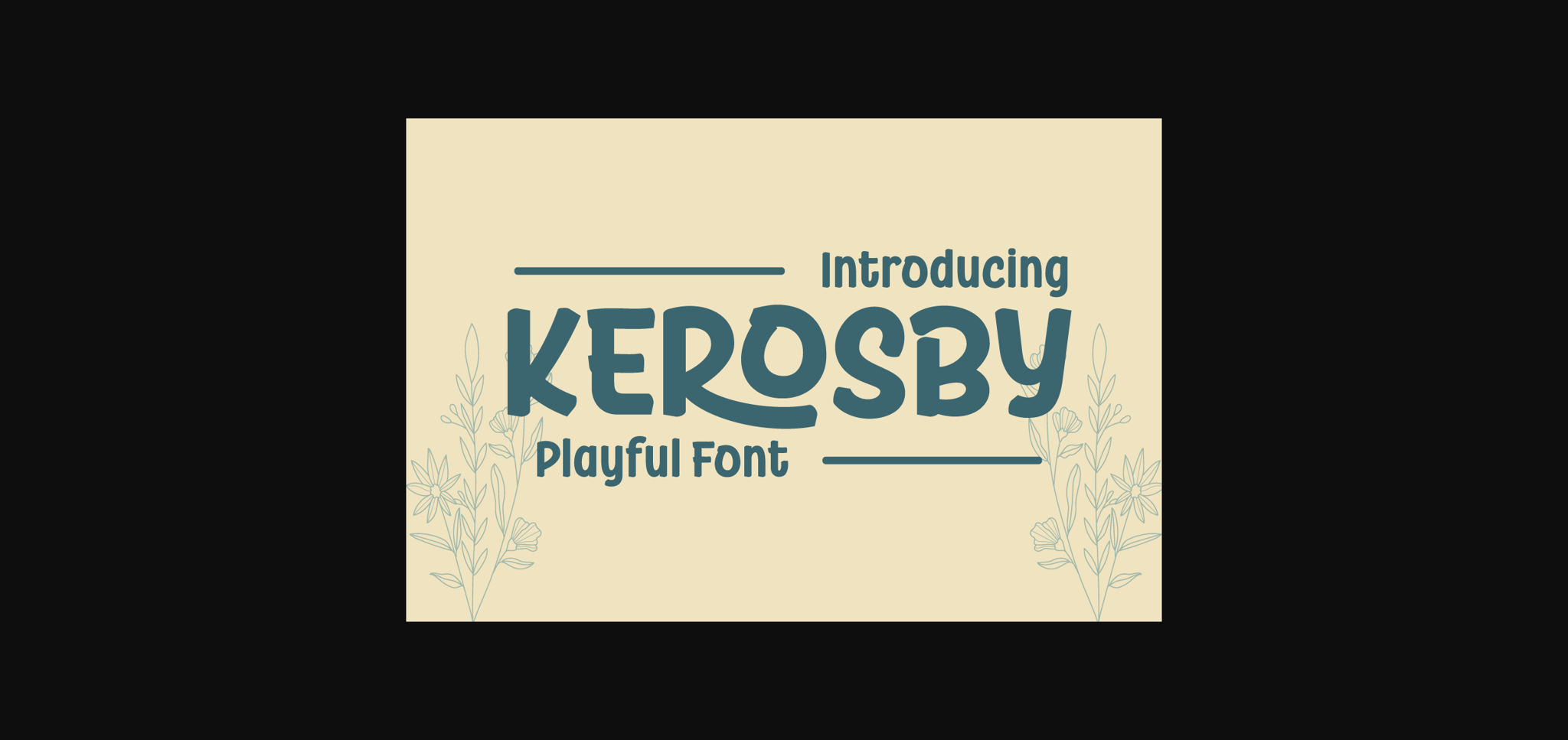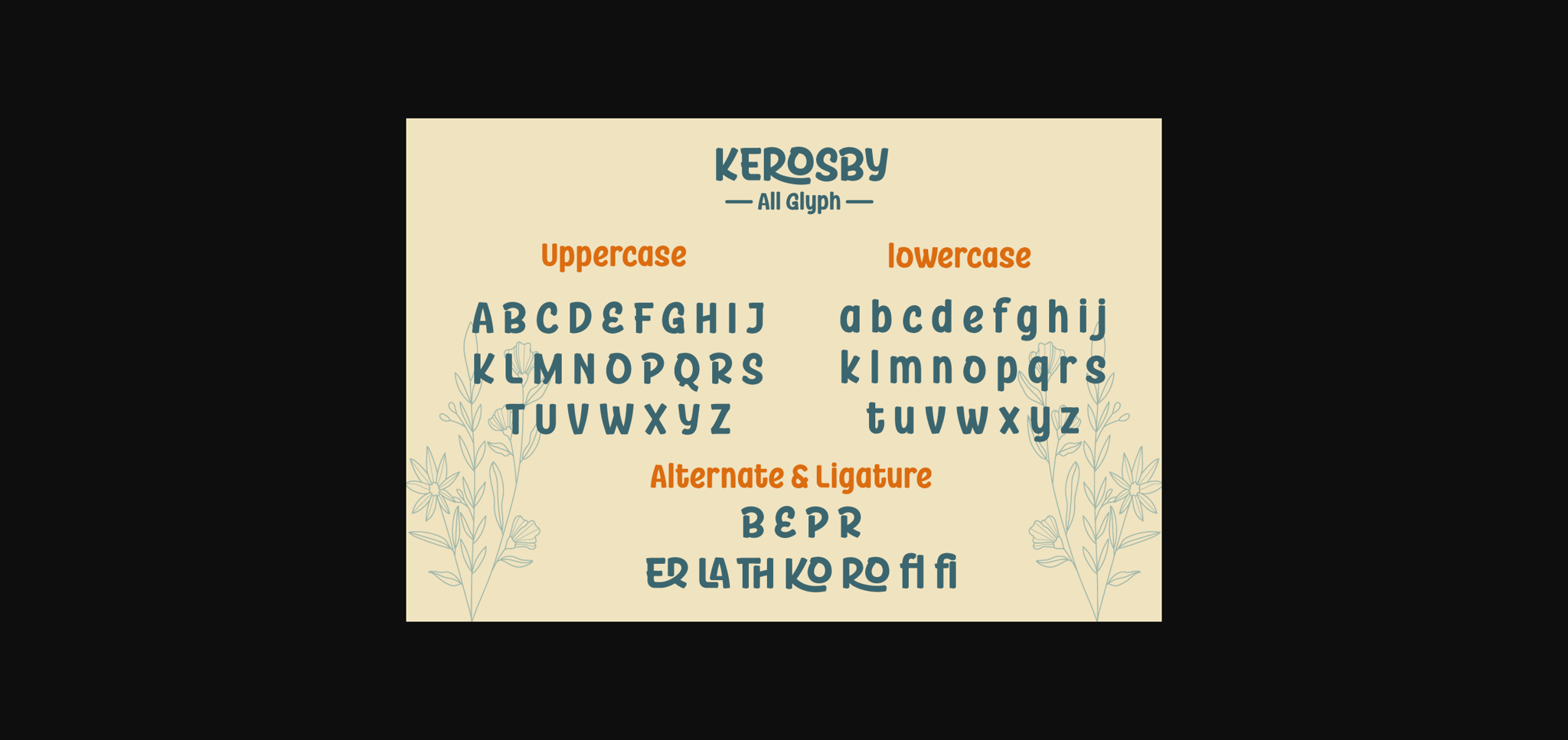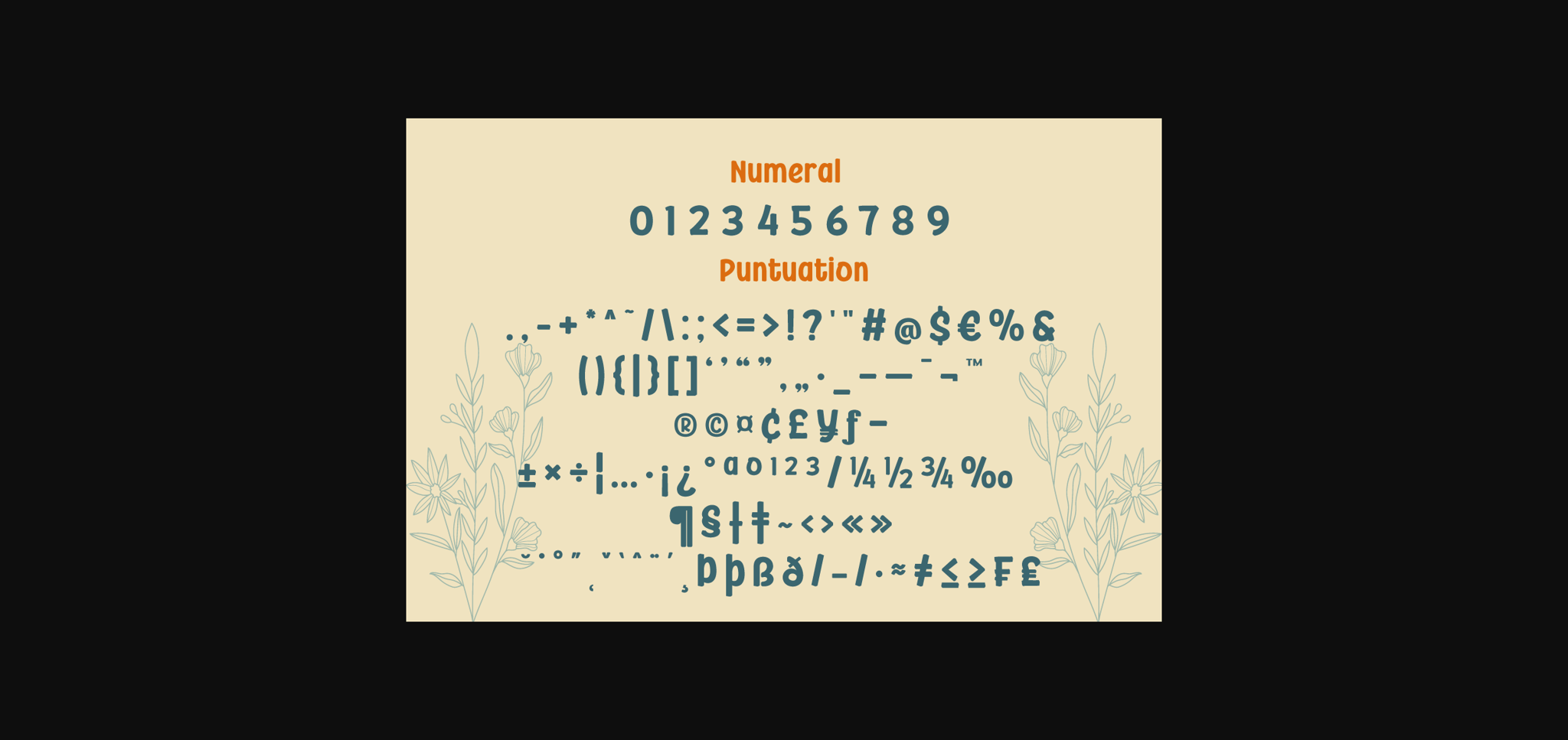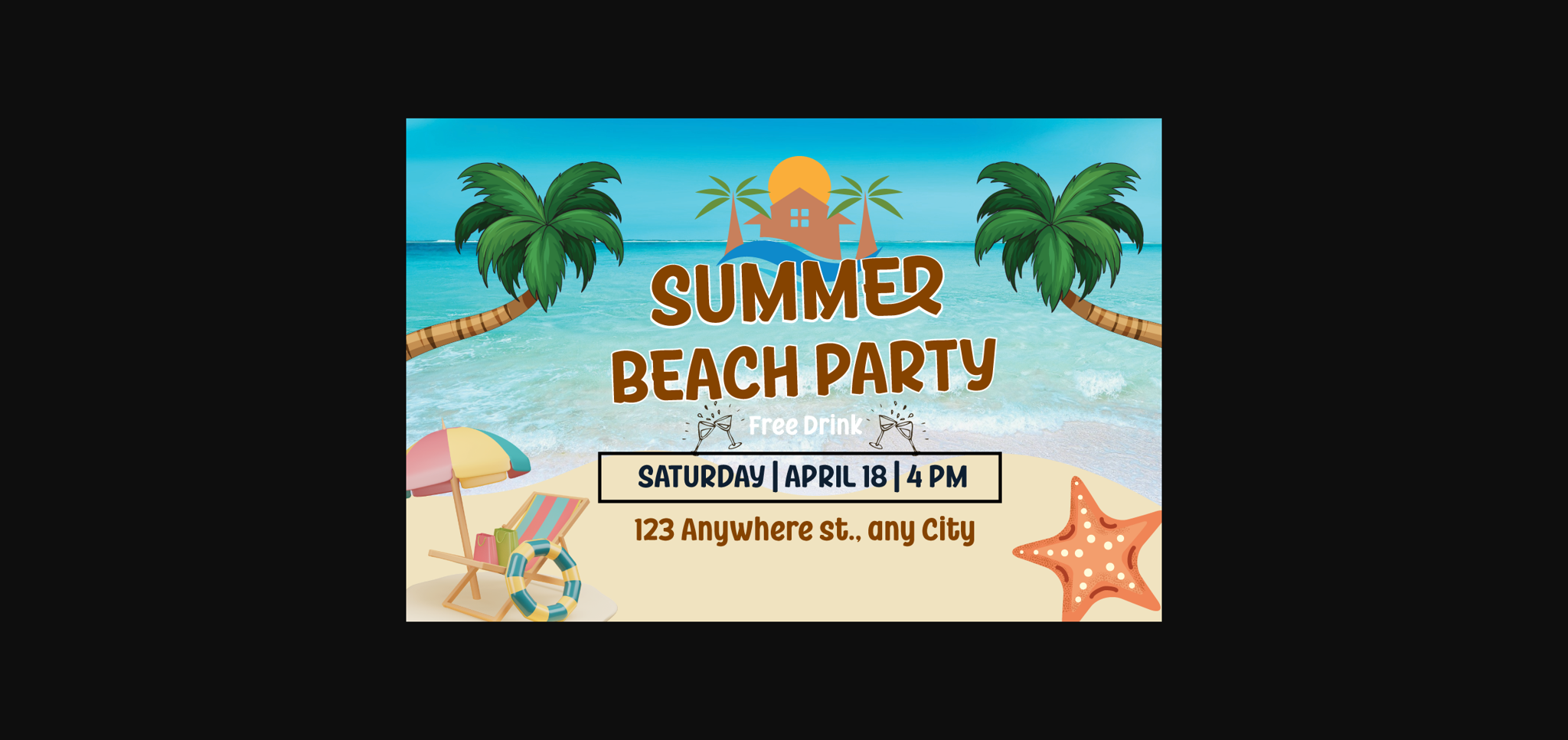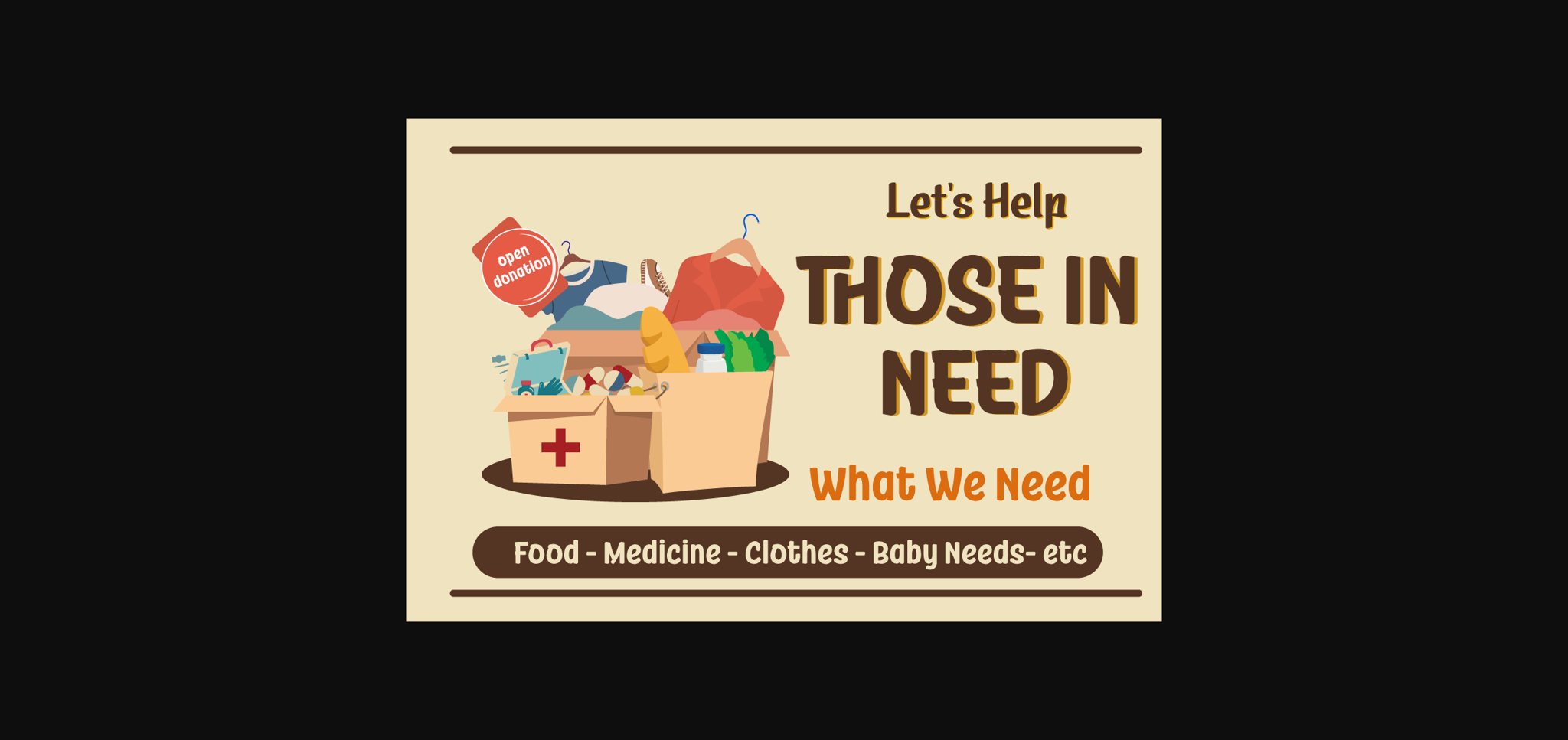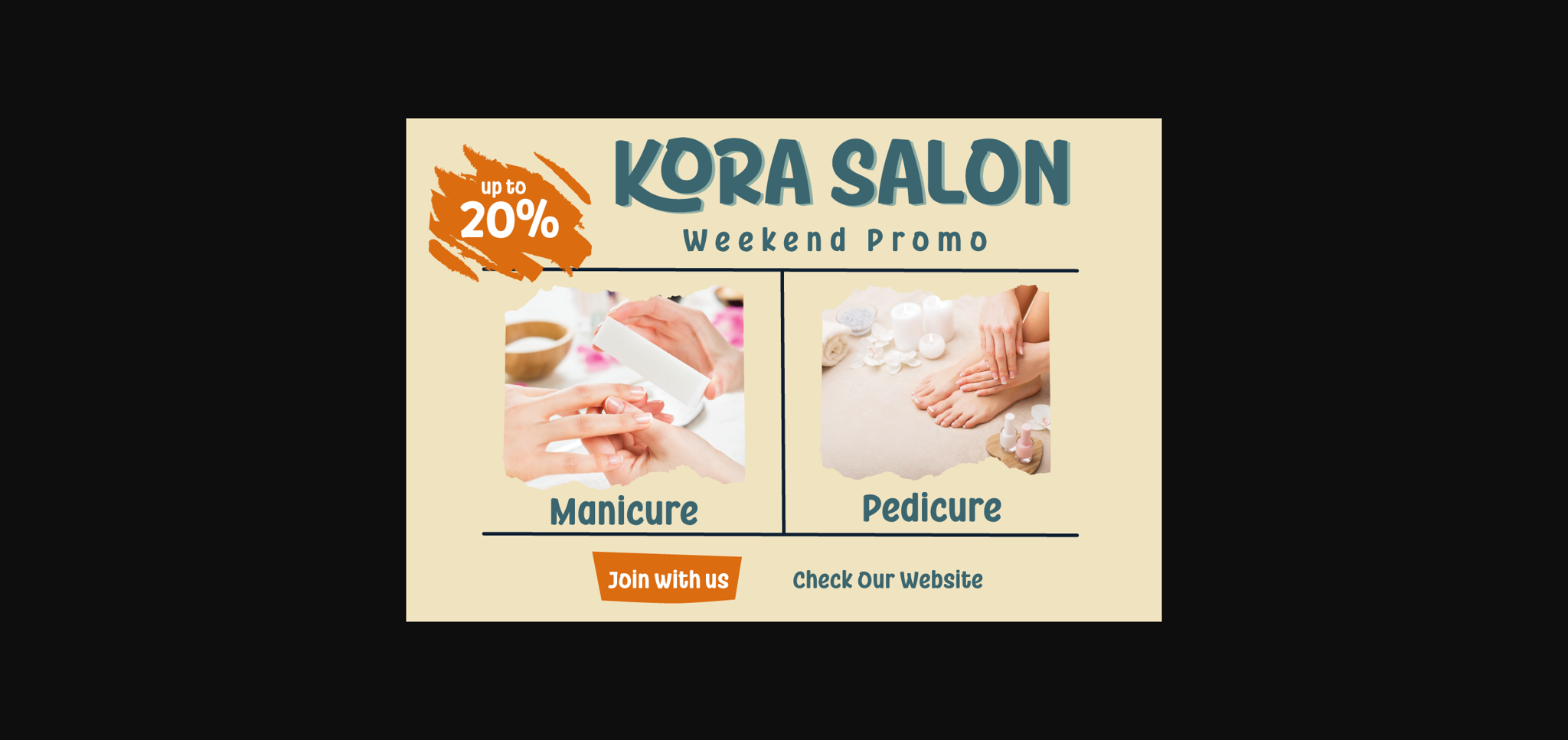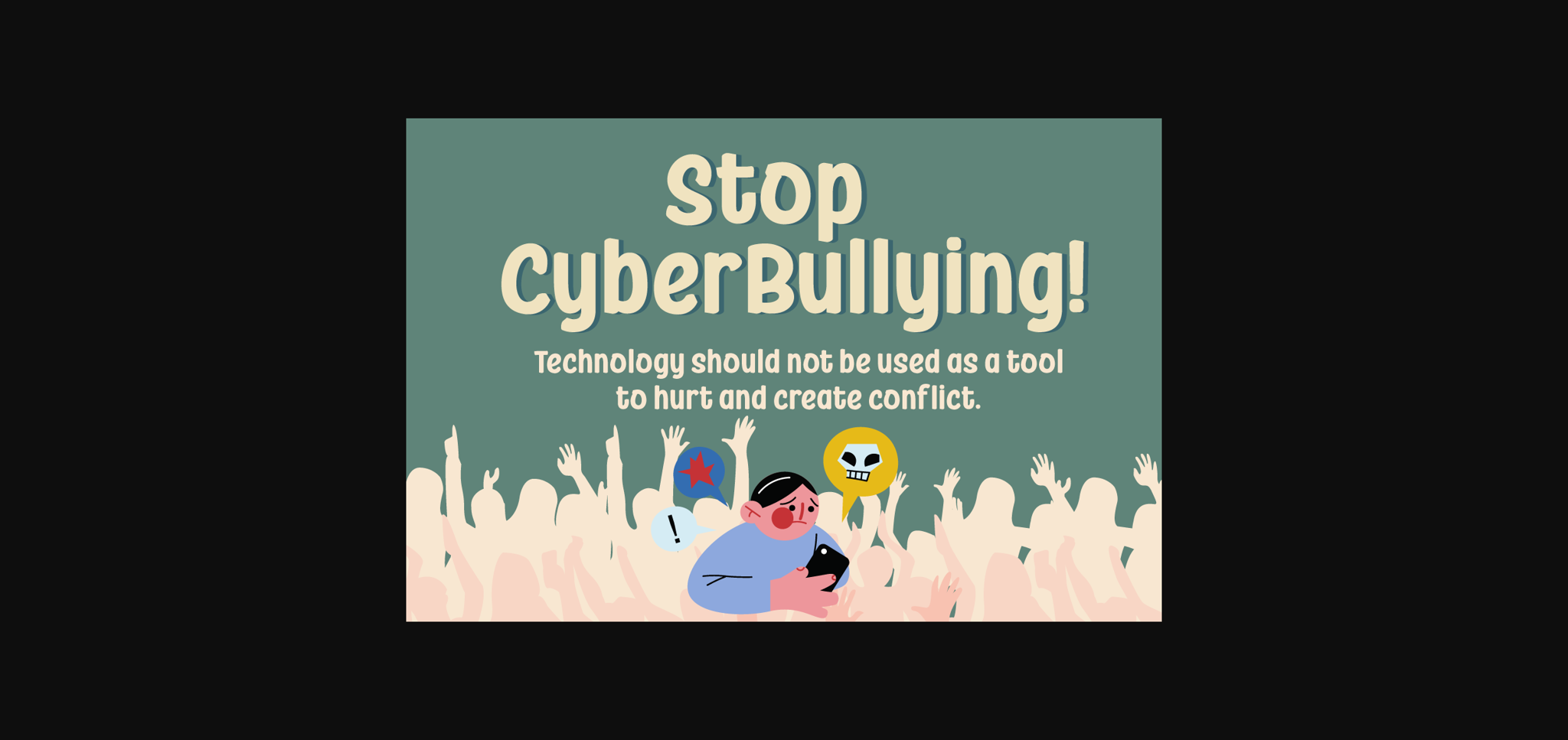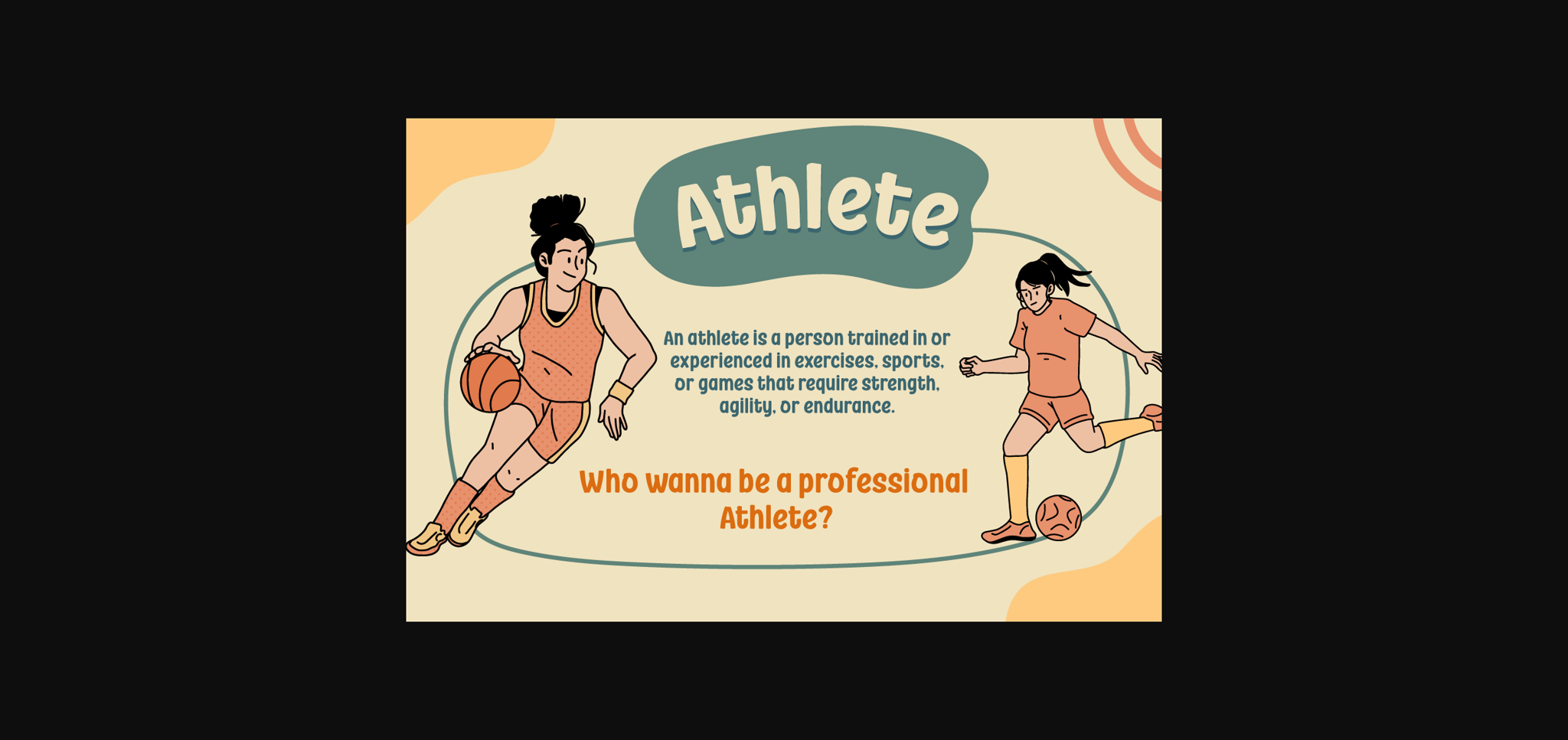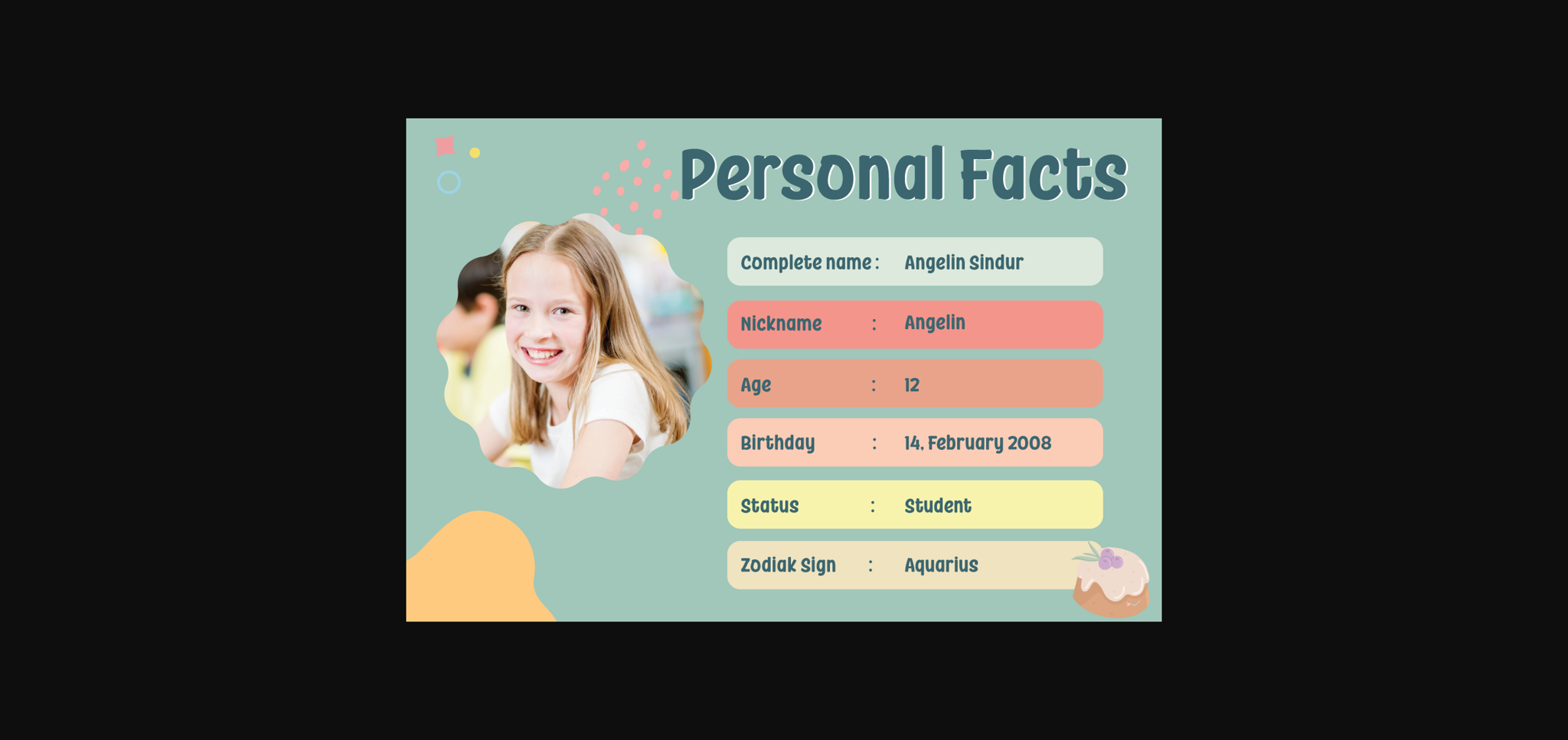
Kerosby Font
Introducing “KEROSBY Font” – Where Playfulness Meets Creativity!
Welcome to the world of KEROSBY Font, where playful design possibilities know no bounds. This delightful display font is your secret weapon for infusing a whimsical touch into your projects.
KEROSBY Font is your go-to choice when you want to inject energy, fun, and a dash of creativity into your designs. Whether you’re crafting children’s books, eye-catching posters, or quirky branding materials, this font has you covered.
The distinctively playful characters of KEROSBY Font are designed to captivate and leave a lasting impression. With its bouncy, fun-loving style, your designs will stand out from the crowd and radiate a sense of joy.
Crafted with meticulous attention to detail, KEROSBY Font ensures that your message is delivered with a playful twist. It adds a touch of humor and personality to your content, making it instantly memorable.
With KEROSBY Font, your creative possibilities are limitless. Let your imagination run wild, infuse your projects with a sprinkle of playfulness, and watch as your designs come to life with this charming typeface. Elevate your design game with KEROSBY Font today!